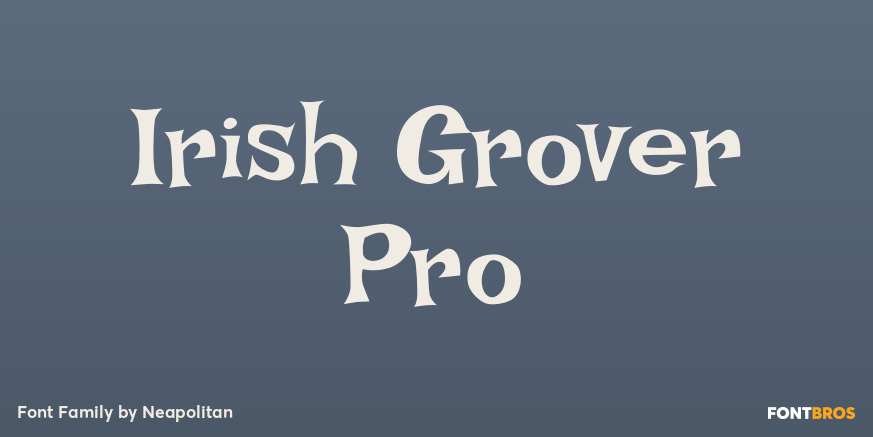
Presenting Irish Grover! No, it\’s not a coveted new AKC breed. No, it\’s not a tasty seasonal pilsner. It\’s a fun, flamboyant, new display font by Squid that\’s way better than any of those possibilities. Sure and it\’s free for Pete\’s sake! And you can\’t…